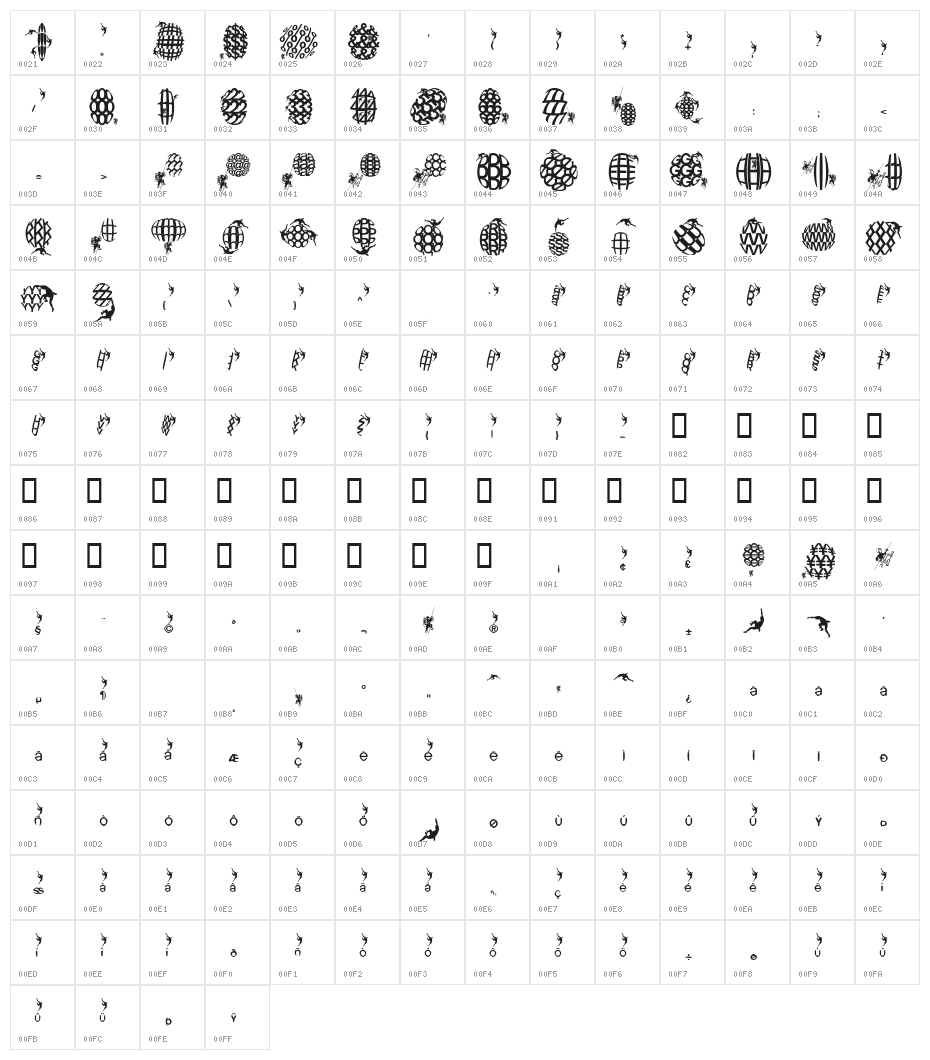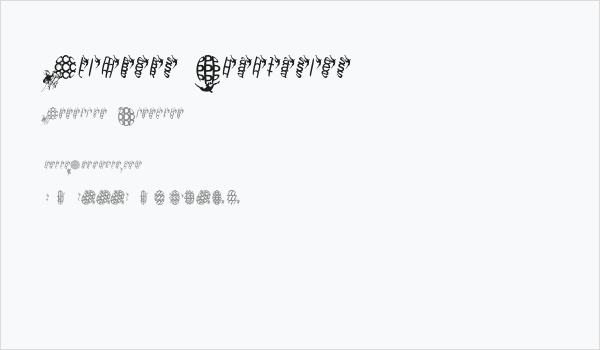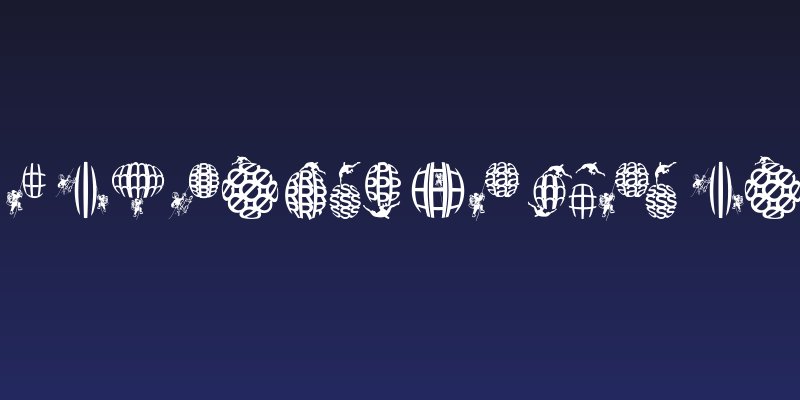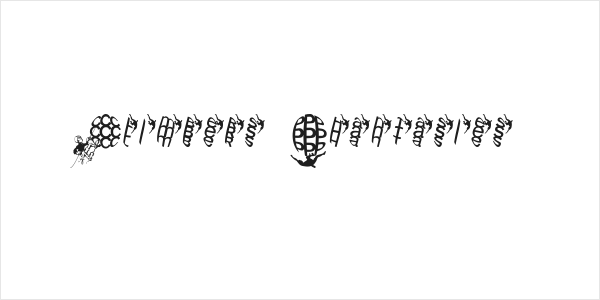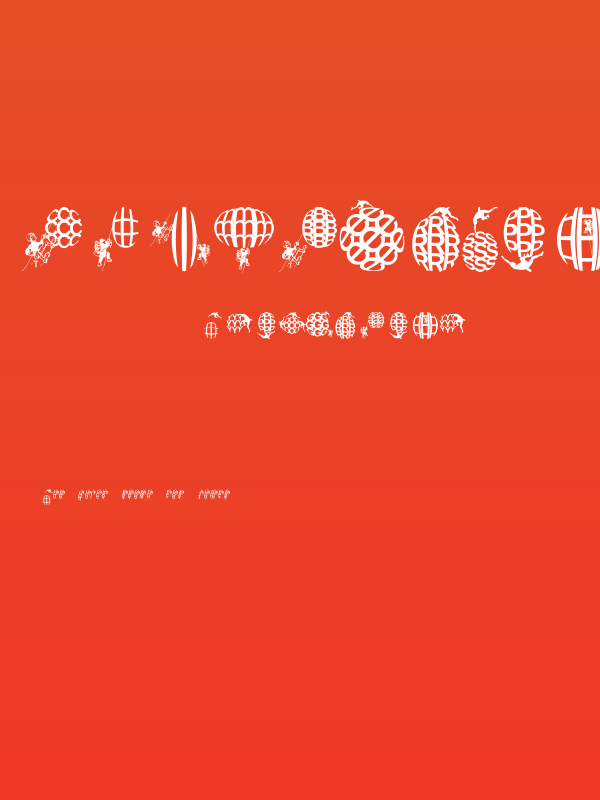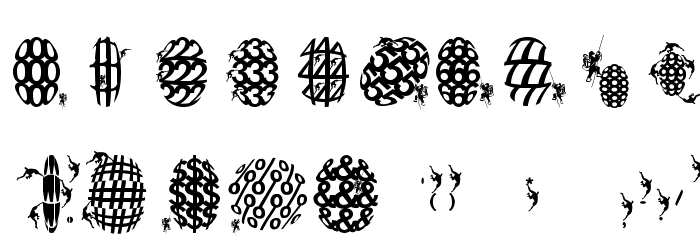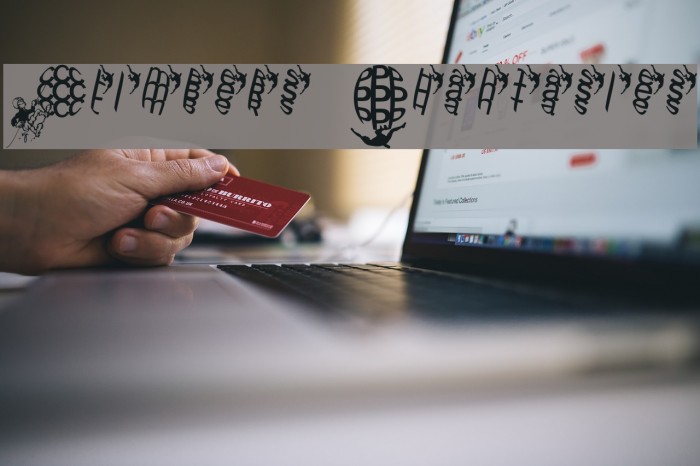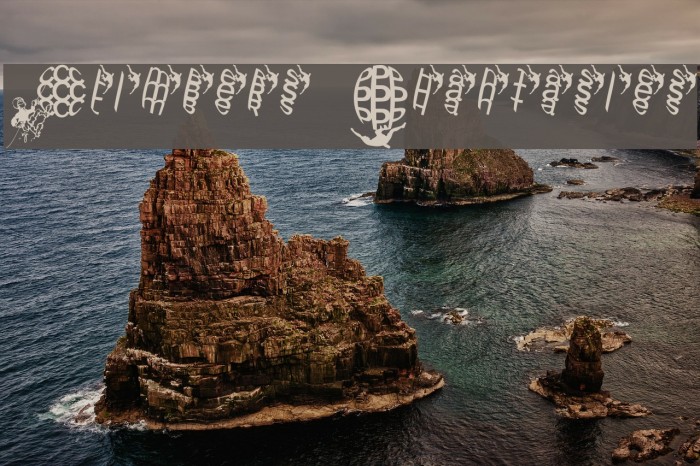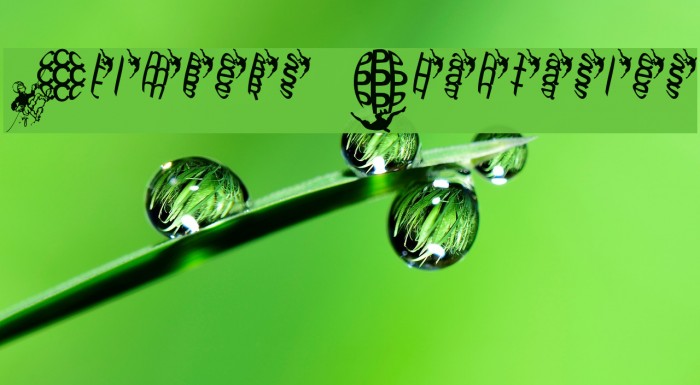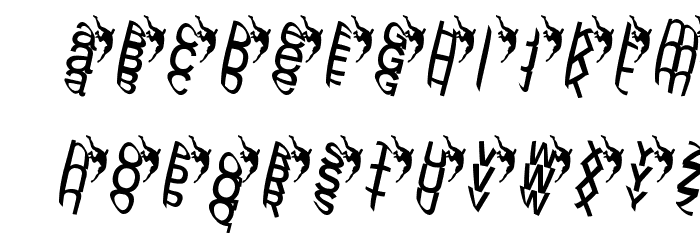
ClimbersPhantasies Font
ClimbersPhantasies Description
This font is a highly decorative and artistic typeface that incorporates intricate patterns and climbing figures into each character. The letters are enclosed in circular shapes, with climbers interacting with the forms, creating a dynamic and playful visual effect. The design is bold and eye-catching, making it suitable for creative and unconventional projects. The unique style of each letter makes it stand out, with a strong emphasis on visual storytelling and artistic expression.
| Overall Style | Artistic and Playful |
| Use Case | Logos, Posters, Artistic Projects |
| Proposed Projects | Ideal for artistic posters, creative branding, event invitations, and unique logo designs. |